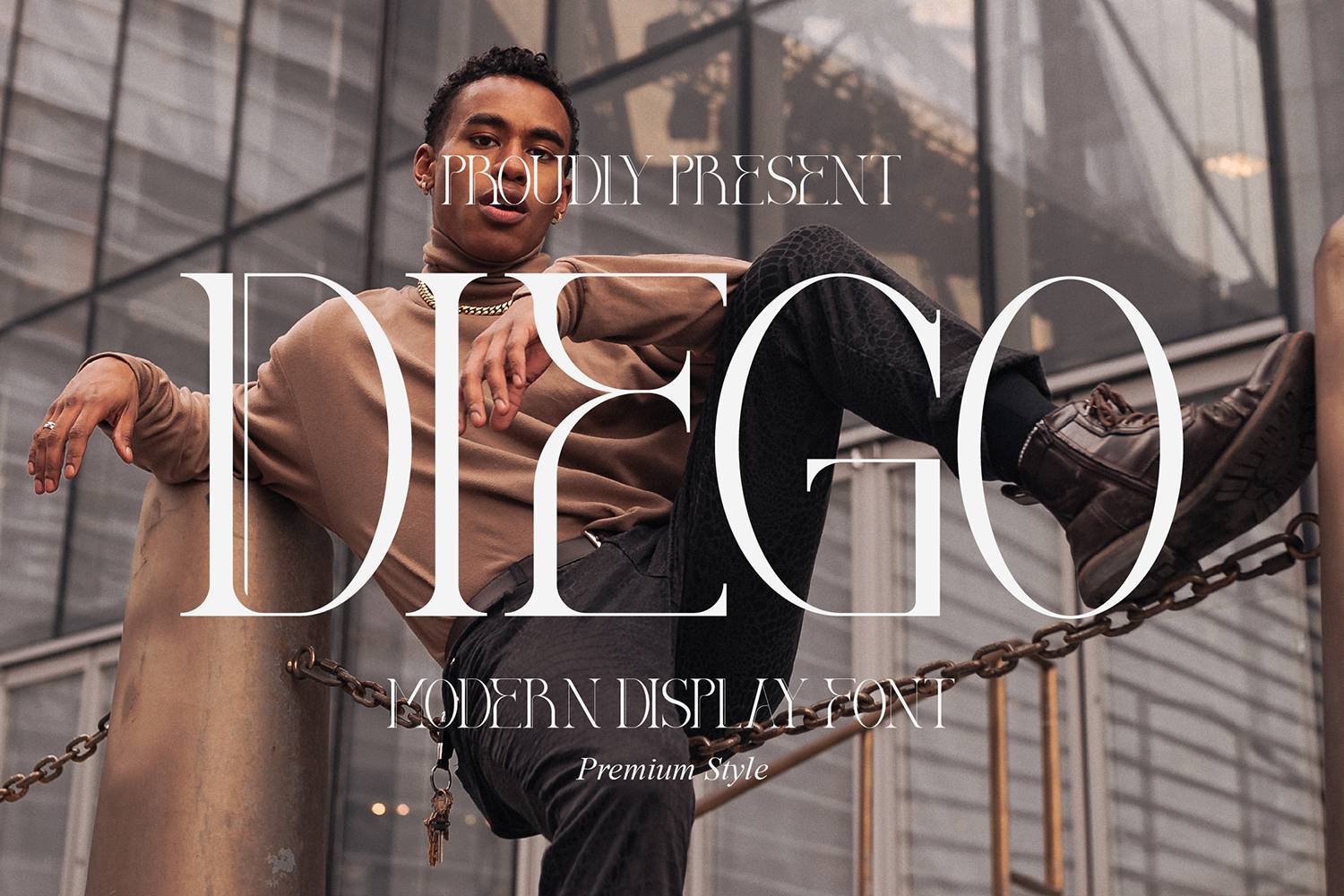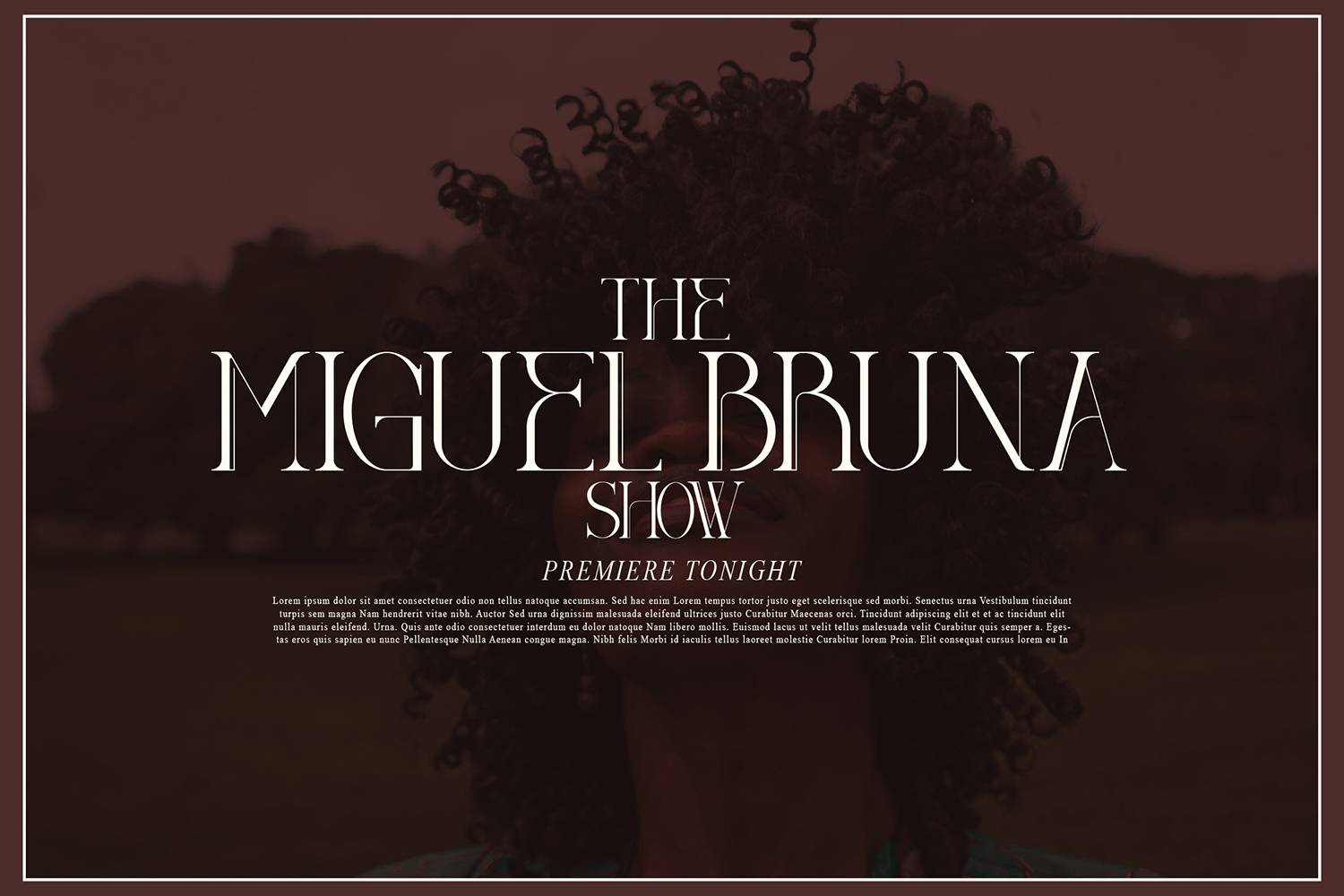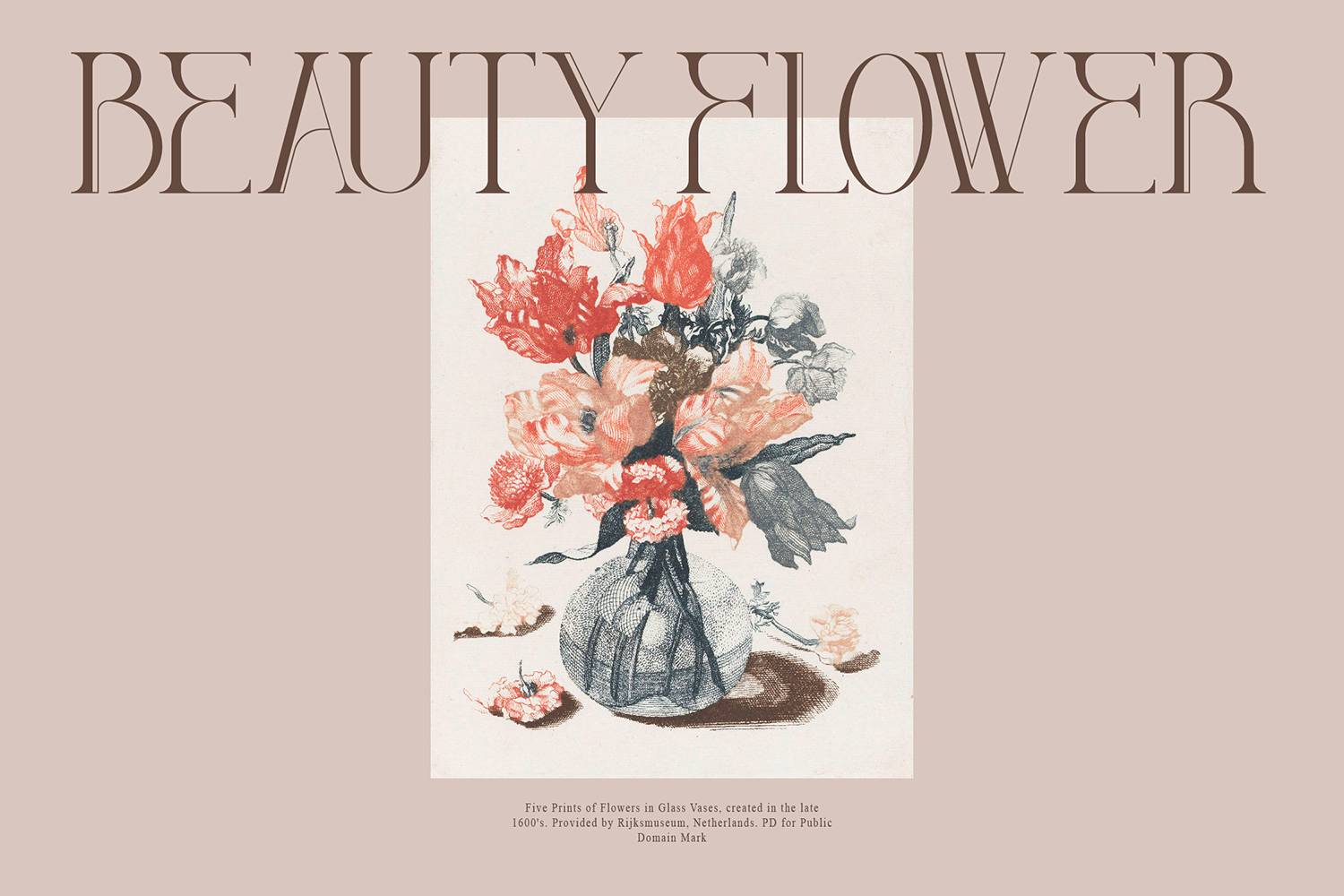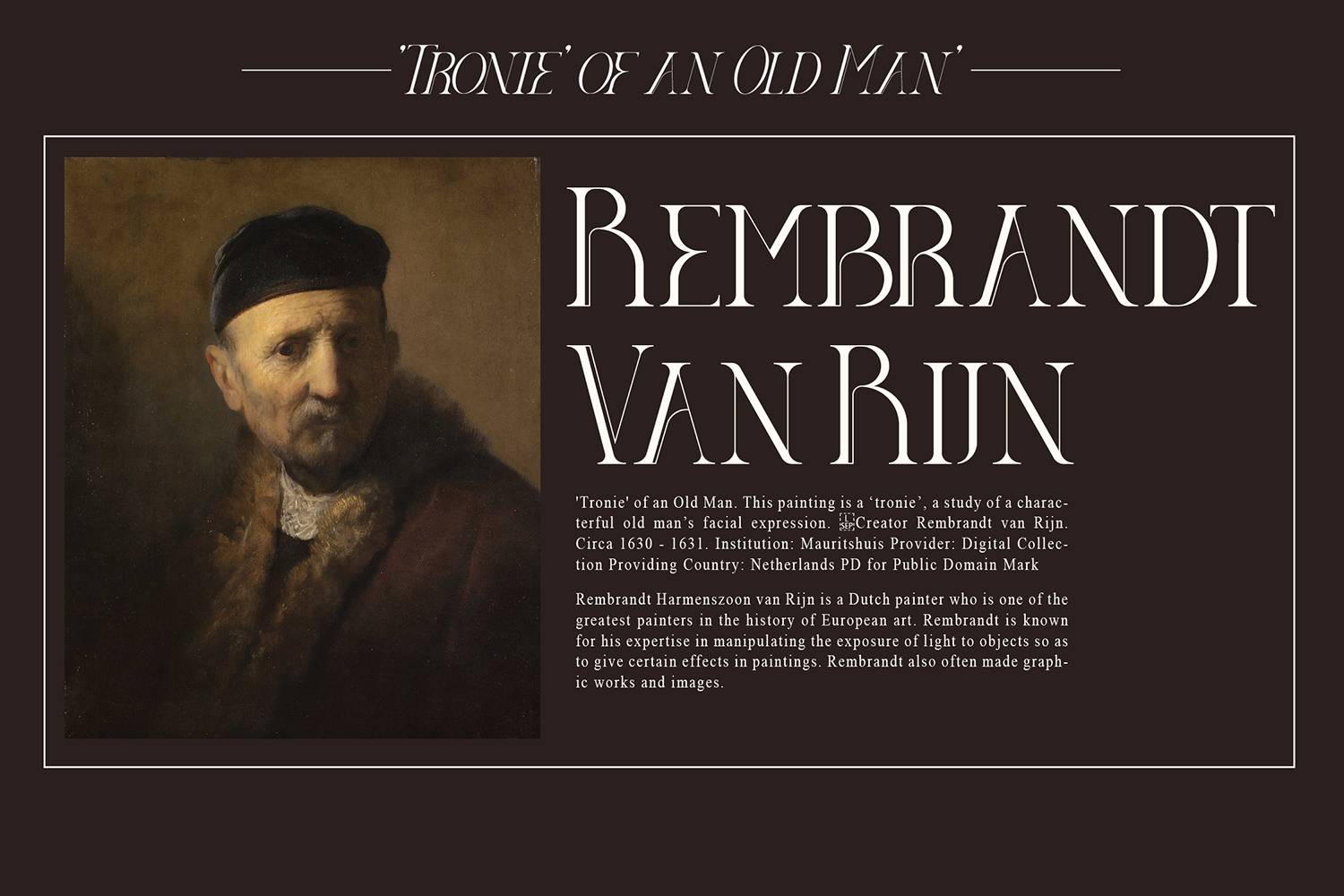
Diego is an elegant serif font featuring high contrast between thick and thin strokes, with slender, tall letterforms and delicate, sharp serifs that create a refined and sophisticated look. Its narrow width and artistic details make it perfect for luxury branding, fashion editorials, and high-end headlines where a stylish and distinctive presence is desired. This font brings a modern yet timeless elegance to designs seeking to convey class and exclusivity.
Diego Font